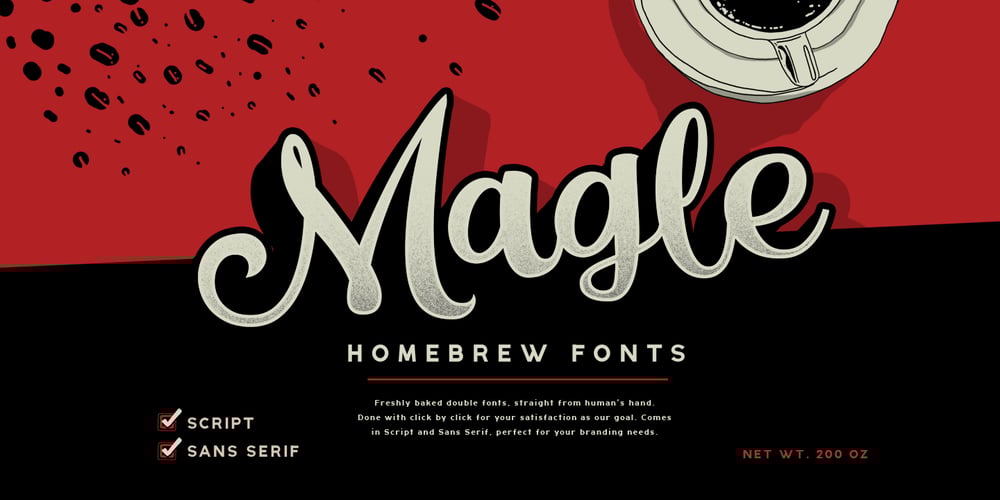
Magle Font Family was designed by Abdilah and published by Konstantine Studio. Magle contains 2 styles and family package options. Please welcome, Magle – Homebrew Fonts. Freshly baked double fonts, straight from human’s hand. Done with click by click for your satisfaction as our goal. Comes in Script and Sans Serif, perfect for your branding needs.